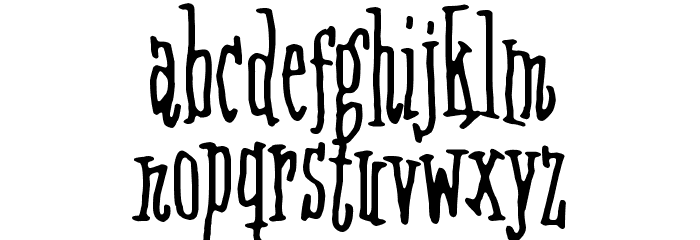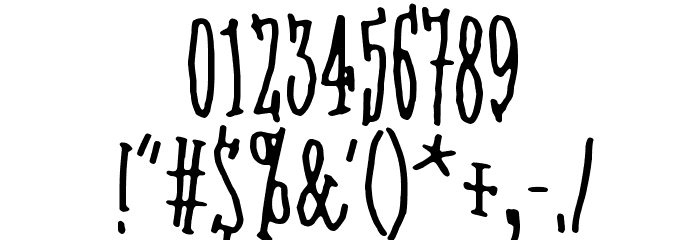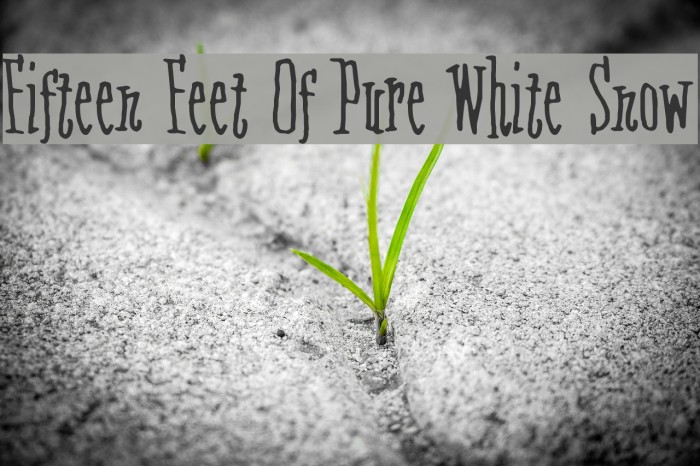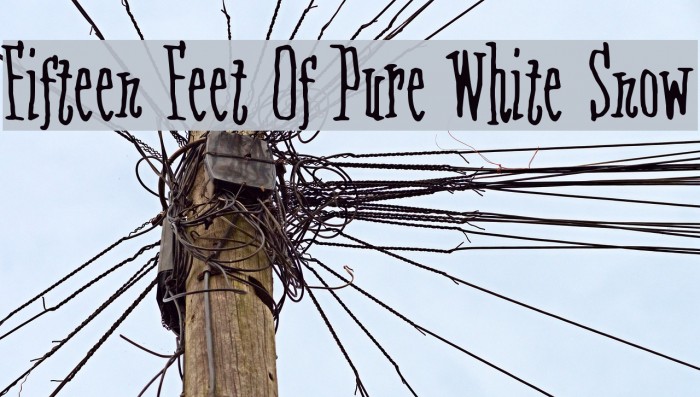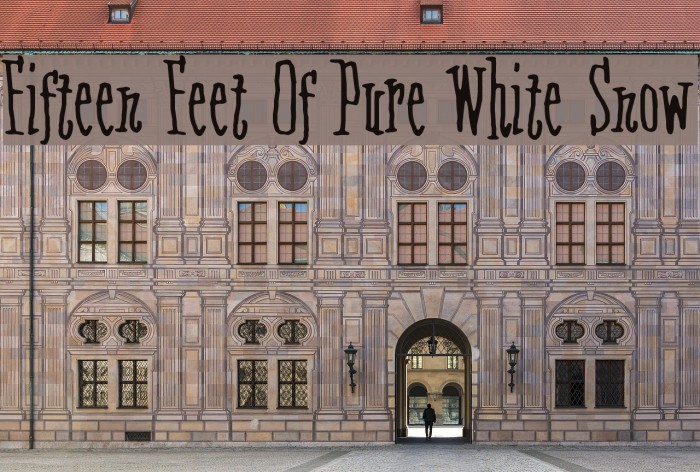
Fifteen Feet Of Pure White Snow Font
This font exhibits a unique and artistic style, characterized by its irregular, hand-drawn appearance. The letters have a playful yet slightly distorted form, with varying stroke widths that give it a dynamic and lively feel. The uppercase and lowercase letters maintain a consistent style, with elongated and slightly wavy lines that add to its whimsical nature. The numbers and special characters follow the same aesthetic, ensuring a cohesive look throughout. This font is perfect for projects that require a touch of creativity and individuality, making it ideal for artistic and unconventional designs.
A whimsical, hand-drawn font with irregular, playful strokes.
- Proposed Projects: Ideal for artistic projects, creative branding, posters, and unique invitations.
- Overall Style: Artistic, Whimsical
- Use Case: Logos, Posters, Creative Branding